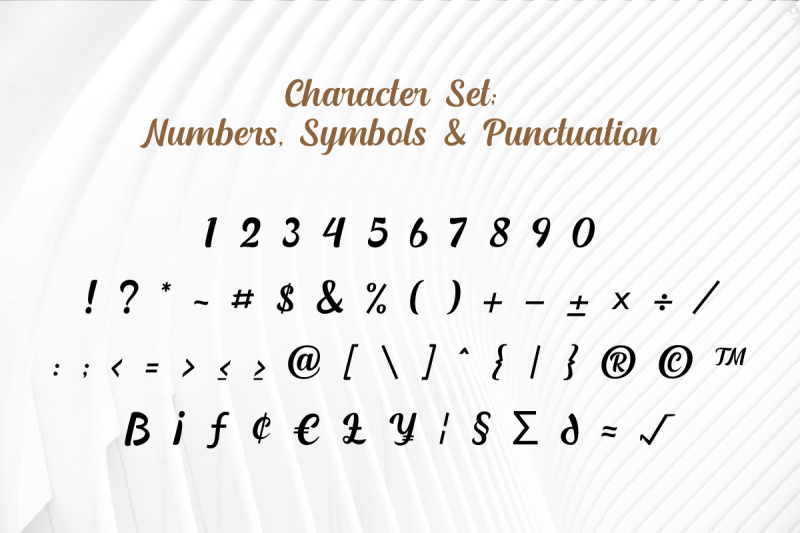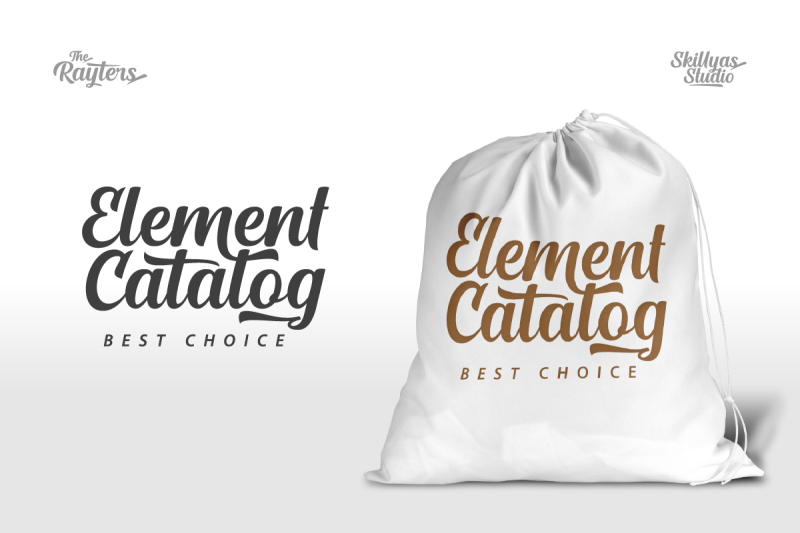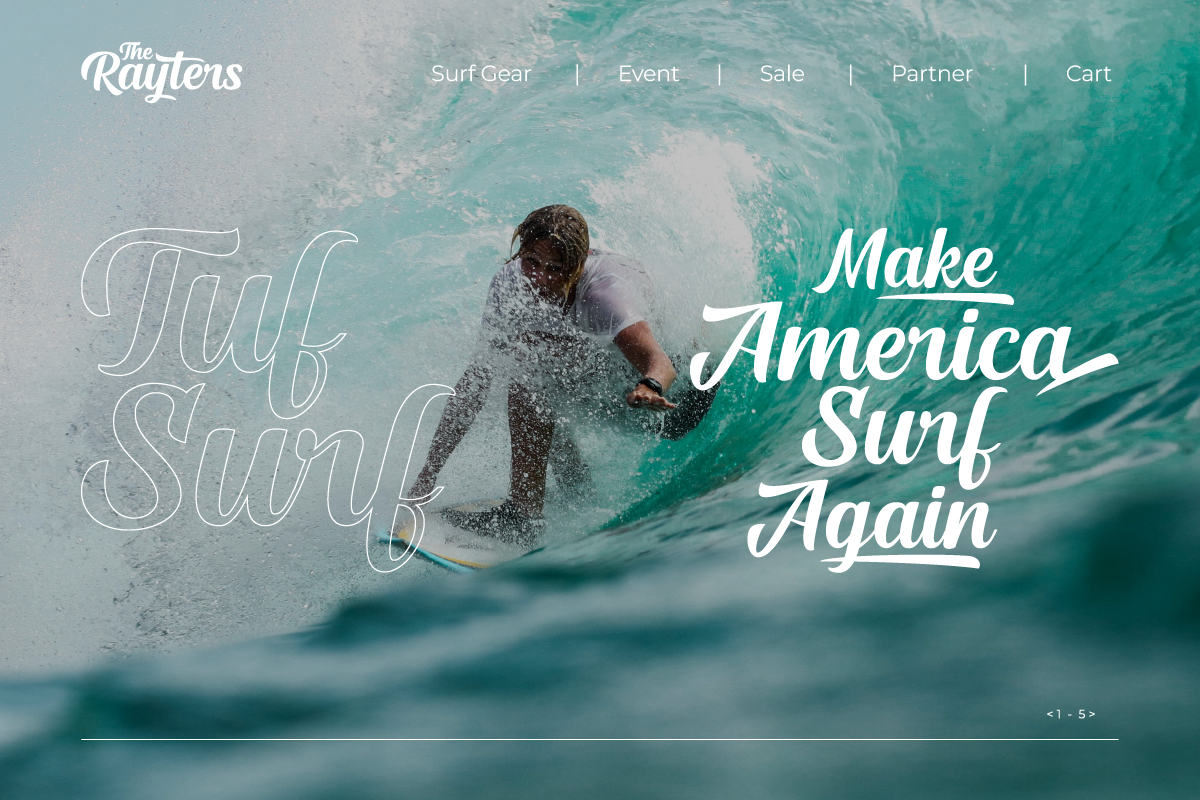
The Rayters is a Modern bold script.
Rayters is handcrafted Carefully with smooth curves so this font is great for Branding, Logo Design, Lettering, Logotype, Clothing, Poster, magazine, and other design project.
The Rayters Character Set :
- Uppercase & Lowercase Letters
- Punctuation & Symbols Support
- PUA encoded Range Standard Alternative Style
- Standard Ligature
- Multilingual Support